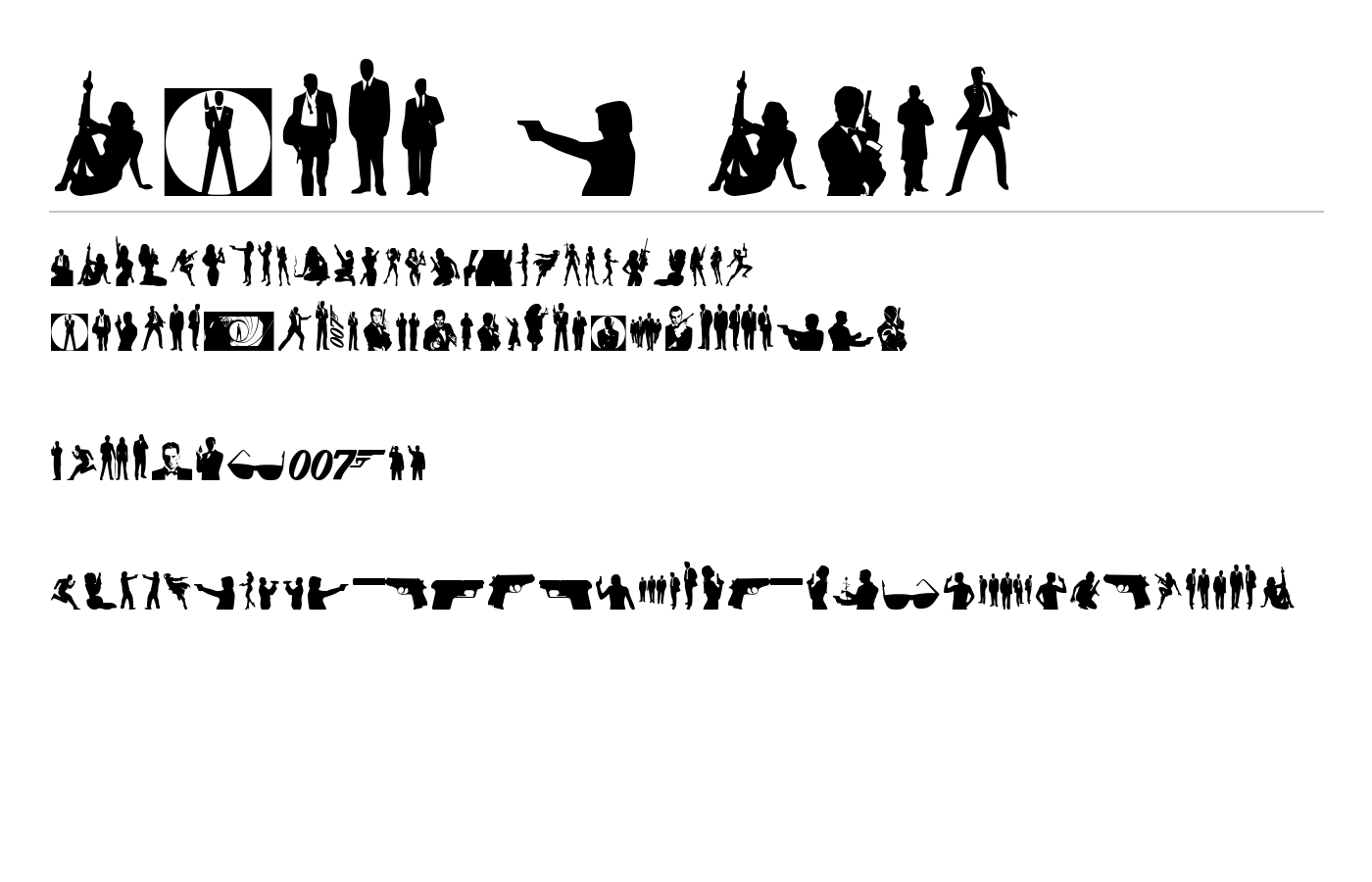
Babes & Bond is a unique symbol font filled with sharp, high-contrast silhouettes inspired by classic spy and secret agent imagery. Instead of traditional letters, it offers bold, dynamic icons of characters, weapons, and iconic spy poses, making it perfect for vintage, cinematic, and espionage-themed designs. This font works best in creative projects like posters, branding, and themed invitations where a playful yet mysterious atmosphere is desired.
Babes & Bond Font
About Babes & Bond Font